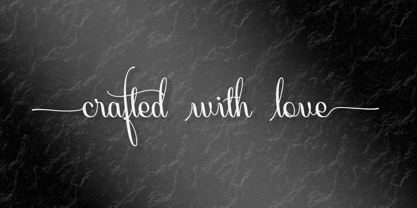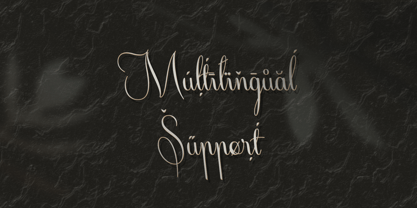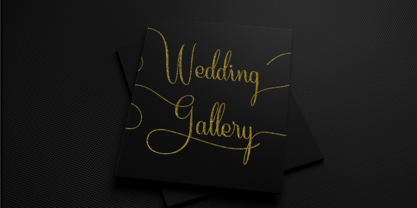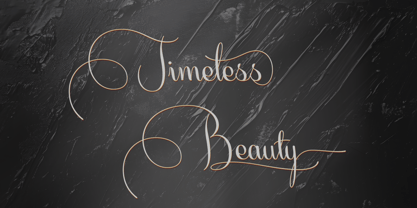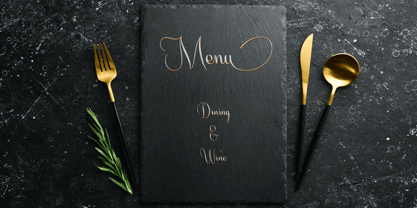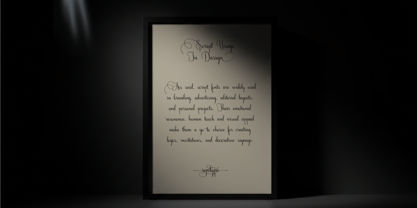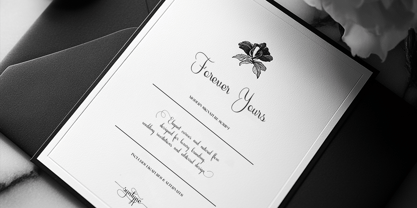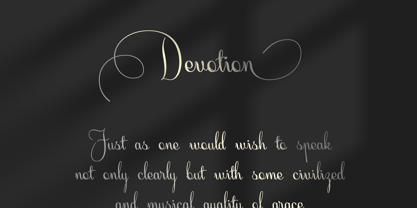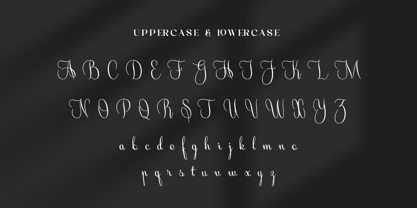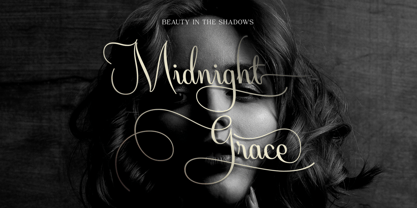
Goldyane
Goldyane is a modern luxury script font crafted with elegant curves, graceful movement, and a natural handwritten feel. Designed to bring sophistication and beauty into every project, this font perfectly fits wedding invitations, branding, photography, fashion editorials, logos, packaging, social media, and feminine designs.
Featuring stylish uppercase characters, delicate lowercase letters, multilingual support, ligatures, and beautiful swashes, Goldyane creates a timeless and classy aesthetic with every word.
Perfect for:
• Wedding Invitations
• Luxury Branding
• Photography Logos
• Fashion Editorials
• Beauty & Skincare Branding
• Social Media Templates
• Signature Logos
• Packaging Design
• Modern Typography
Features:
• Uppercase & Lowercase
• Numbers & Punctuation
• Multilingual Support
• Ligatures
• 9 Elegant Swashes
Goldyane was created to deliver a soft, stylish, and luxurious handwritten experience with a modern touch.